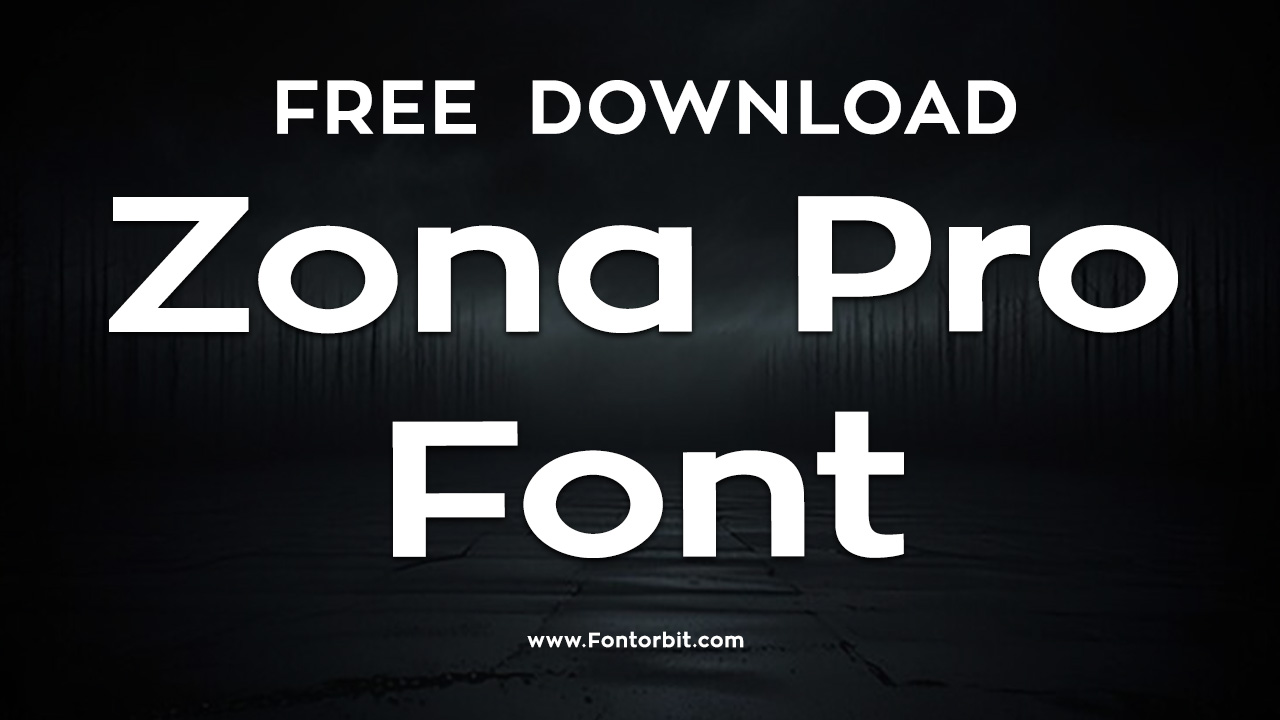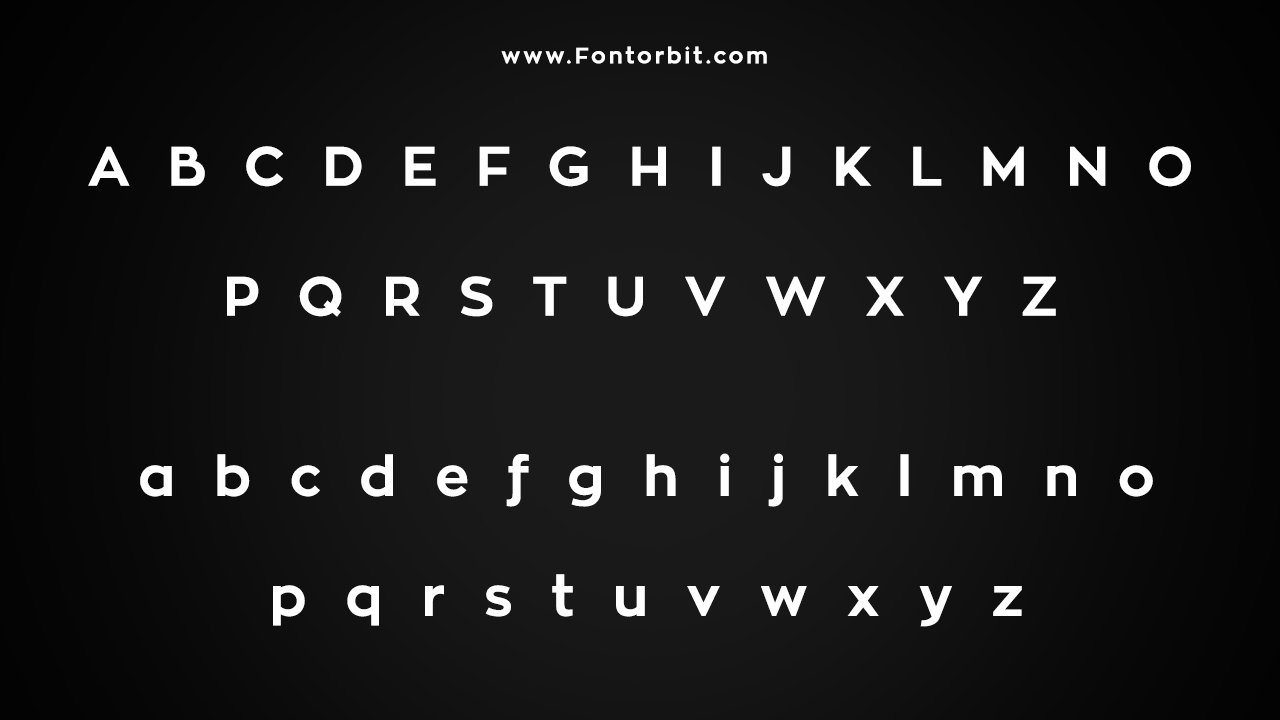
Zona Pro Font is a versatile sans serif typeface designed by Kostas Bartsokas. It is known for its modern, sleek, and highly legible design, making it suitable for a wide range of applications.
Zona Pro Font comes with an extensive font family that features various weights and styles. This diversity allows designers to find the perfect tone for their projects, whether they need a light, subtle appearance or a bold, eye-catching statement. While it primarily focuses on simplicity and clarity, the range of available styles adds flexibility to its use. Here are the key styles in the Zona Pro Font family:
Each style maintains the geometric precision and clean lines characteristic of the Zona Pro Font, offering a cohesive yet diverse collection for any design need.
Zona Pro Font’s minimalist and sleek design makes it ideal for a wide array of uses. Its straightforward forms and modern appearance allow it to adapt well to both professional and creative projects. Designers often choose Zona Pro for materials that require a refined yet approachable aesthetic. Here are some popular applications of the Zona Pro Font:
Zona Pro Font is commonly seen in numerous professional and creative environments. Its modern sans serif structure makes it a go-to choice for companies looking to convey a sense of sophistication and simplicity. Whether on business cards, product labels, magazine covers, or digital media, Zona Pro’s clean lines and balanced forms help deliver a message with clarity and style. Its use extends across industries like fashion, retail, technology, and advertising.
Zona Pro Font embodies the spirit of modern minimalism with its clean, geometric design. While the exact font offers a unique balance of simplicity and sophistication, alternatives like Helvetica Neue, Montserrat, and Gotham provide comparable aesthetics for various design projects. Zona Pro Font pairs well with serif fonts or bolder display fonts, enhancing its style while maintaining a clean look.
Zona Pro Font was designed by Kostas Bartsokas with the intention of creating a modern, clean sans serif that could suit a wide range of design needs. Its geometric style and balanced proportions have made it a favorite among designers.
The design principles of Zona Pro focus on geometric precision, simplicity, and high legibility. Its smooth, well-balanced letterforms reflect a modern aesthetic suitable for various applications.